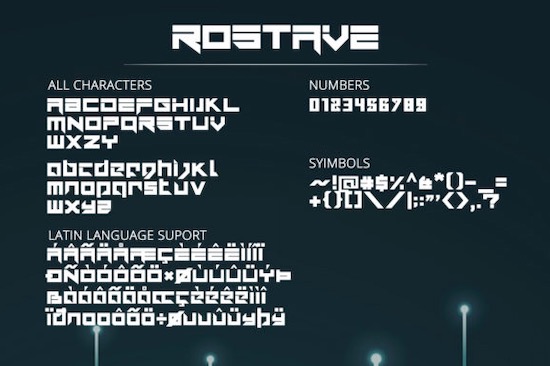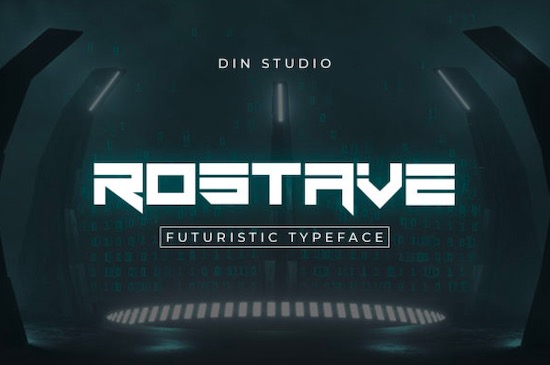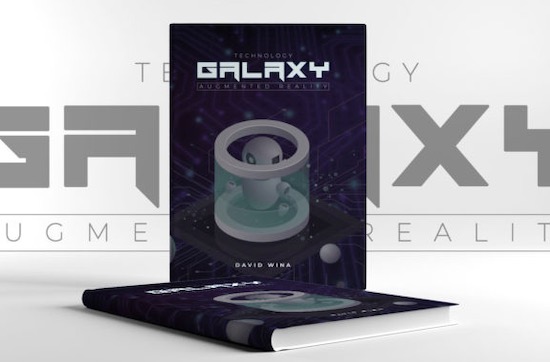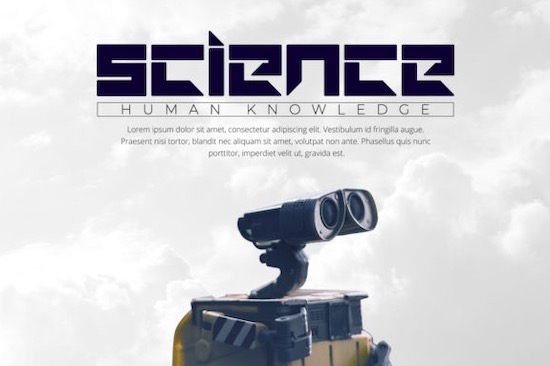
Rostave font
Introducing Rostave font. It’s an elegant futuristic and unique Display font. Rostave font is masterfully created by Din Studio to become a true favorite, and it has the potential to take your creative design ideas to a new higher level.
Rostave comes with lowercase, uppercase, punctuations, and numerals along with so many variations on each letter consists of additional swash, common ligatures, and Opentype alternates to let you customize your designs. This Retro font is very perfect to use for Label, Poster, Letterhead, Logotype, Apparel Design, and so on.